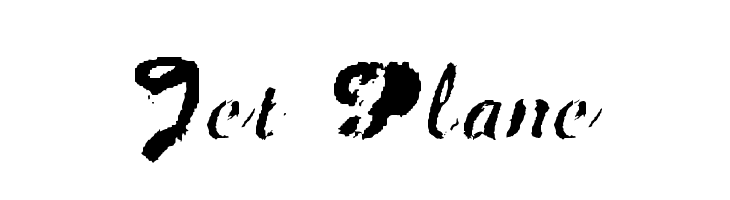
( Fonts by Mike Lecky - www.superfunk.com )
A bold, brush-style font with high contrast and dynamic strokes.
( Fonts by www.aenigmafonts.com OFF SITE )
A bold, jagged font with sharp, thorn-like edges for dramatic impact.
( Fonts by www.DigitalDreamDesign.net )
A modern, wide, and geometric font with a futuristic, mechanical feel.
( Font by Berry Brooks - Fontocide )
A bold, distressed font with jagged edges and a hand-drawn appearance.
( Fonts by Paul Lloyd )
An elongated, high-contrast serif font with a sophisticated and decorative style.